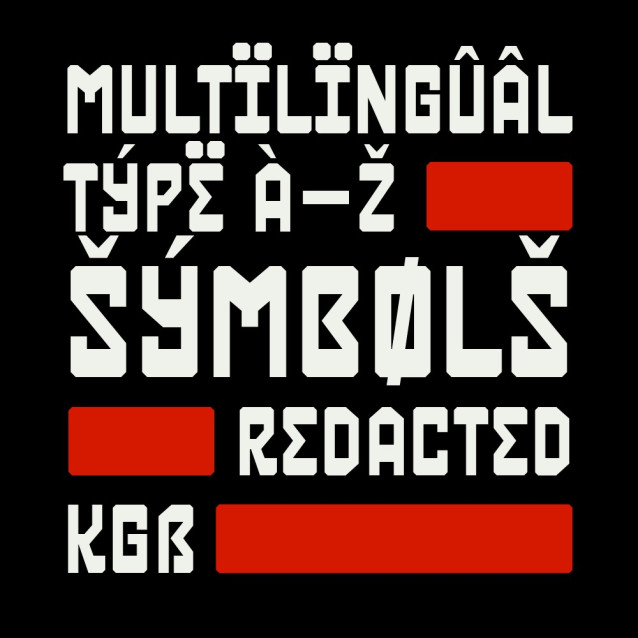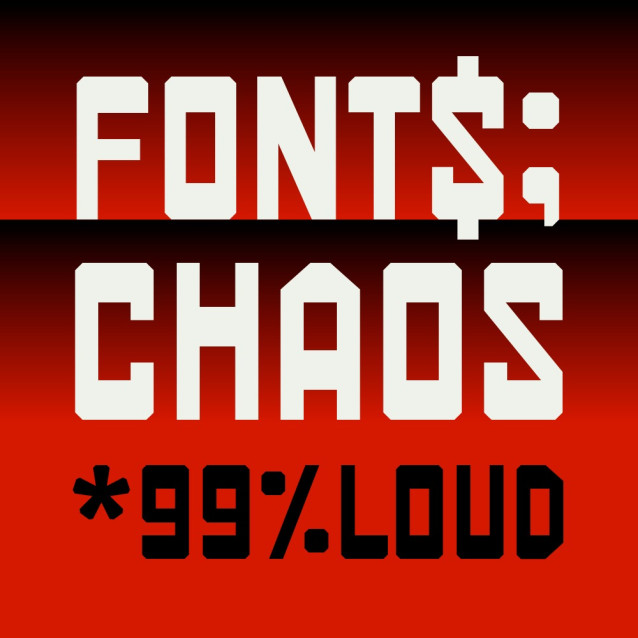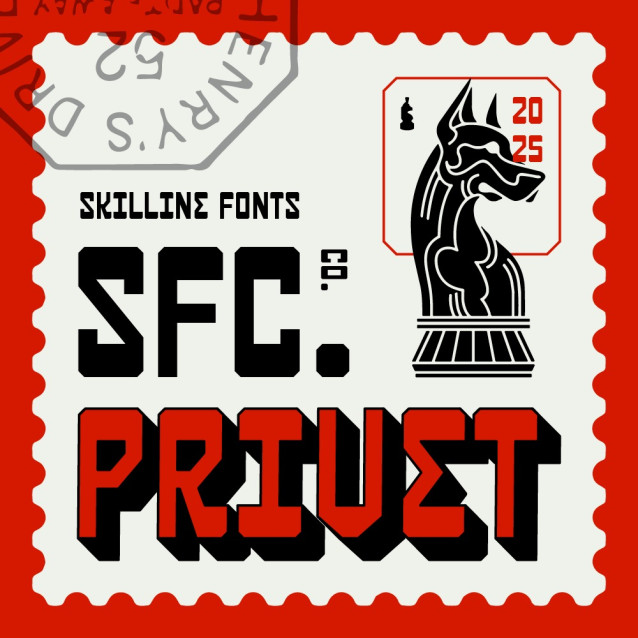
SFC Privet Font
SFC Privet Font is a bold, chunky typeface with a strong square structure and a slightly Eastern European attitude. It carries a loud, unapologetic presence, perfect for grabbing attention while still feeling playful and a bit ironic. Inspired by blocky signage and retro propaganda aesthetics, this font brings a unique mix of seriousness and humor into one distinctive style. Ideal for designers who want to stand out, SFC Privet works great in projects that embrace bold visuals, cultural edge, and a touch of rebellious personality.